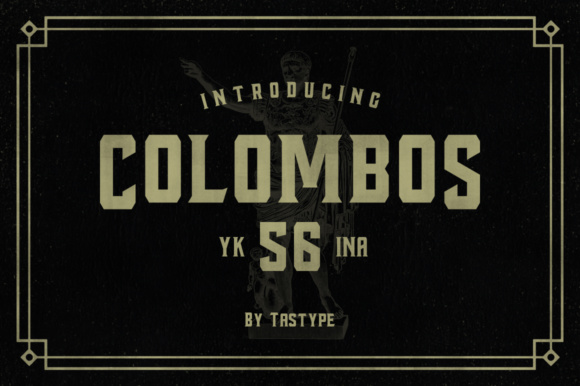
Colombos Font
Font Name : Colombos Font
Author : Goodware.Std
Colombos: The Bold and Elegant Display Serif Font to Captivate and Inspire
Journey into the world of typography with Colombos, a display serif font that exudes boldness, elegance, and timeless charm. This captivating creation by Goodware.Std is a visual masterpiece designed to leave a lasting impression on your creative projects.
Crafted with precision and a keen eye for detail, Colombos boasts a striking aesthetic that commands attention from afar. Its sharp serifs and confident curves lend a touch of sophistication and refinement, while its sturdy structure ensures exceptional readability even at smaller sizes. As a display font, Colombos excels in creating headlines, titles, logos, and other design elements that demand attention.
Unleash your creativity with Colombos and explore its versatility across a wide range of design applications. Let your imagination soar as you craft stunning labels that speak volumes about your brand, or design eye-catching posters that leave an indelible mark on your audience. Transform your logos into timeless symbols of elegance, and elevate your marketing materials with a font that exudes professionalism and grace.
Experience the allure of Colombos and delve into its rich character set, which includes both uppercase and lowercase letters, numerals, and a comprehensive selection of punctuation marks. Express yourself with a font that speaks to your unique style and artistic vision, whether you're a seasoned designer or just starting your creative journey.
Join the ranks of creative professionals who have discovered the power of Colombos and witnessed the transformative impact it has on their work. Let your designs shine brighter than ever before, and embark on a journey of creative exploration with a font that inspires and captivates.